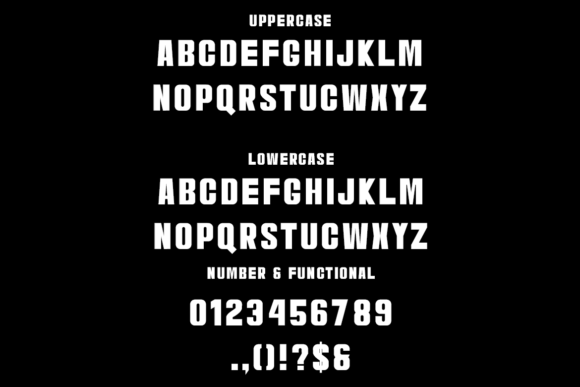
Unleash Your Creativity with Daedalus Font: The Ultimate Display Font for Speed and Power
Are you a designer or crafter looking for a font that can add a touch of boldness and coolness to your projects? Look no further than the Daedalus Font. This stunning display font is perfect for designs related to speed or power, and is sure to take your work to the next level. In this article, we’ll dive into the features and benefits of Daedalus Font, and explore how you can use it to elevate your designs.
What is Daedalus Font?
Daedalus Font is a modern, sans-serif display font that exudes confidence and energy. Its bold and sleek design makes it perfect for headlines, titles, and other display text. The font is highly legible, even at large sizes, making it ideal for use on posters, billboards, and other large-format designs.
Key Features of Daedalus Font
- Bold and Cool Design: Daedalus Font features a bold and cool design that is sure to grab attention. Its sleek lines and modern aesthetic make it perfect for designs that require a touch of sophistication.
- Highly Legible: Despite its bold design, Daedalus Font is highly legible, even at large sizes. This makes it perfect for use on a wide range of designs, from posters and billboards to digital screens and social media graphics.
- Versatile: Daedalus Font is a versatile font that can be used on a wide range of designs, from speed and power-related projects to fashion and lifestyle designs.
- Easily Customizable: Daedalus Font is easily customizable, allowing you to adjust the font size, color, and style to suit your design needs.
How to Use Daedalus Font in Your Designs
Daedalus Font is perfect for a wide range of design projects, including:
- Speed and Power-Related Designs: Daedalus Font is perfect for designs related to speed and power, such as sports cars, motorcycles, and athletic wear.
- Fashion and Lifestyle Designs: The font’s sleek and modern design makes it perfect for use on fashion and lifestyle designs, such as clothing, accessories, and beauty products.
- Posters and Billboards: Daedalus Font is highly legible, even at large sizes, making it perfect for use on posters and billboards.
- Digital Designs: The font is also perfect for use on digital designs, such as social media graphics, website headers, and digital ads.
Benefits of Using Daedalus Font
By using Daedalus Font in your designs, you can:
- Add a Touch of Boldness and Coolness: Daedalus Font adds a touch of boldness and coolness to your designs, making them stand out from the crowd.
- Increase Legibility: The font’s high legibility ensures that your message is conveyed clearly and effectively, even at large sizes.
- Enhance Your Brand’s Image: By using Daedalus Font, you can enhance your brand’s image and create a lasting impression on your audience.
In conclusion, Daedalus Font is a cool and bold display font that is perfect for designs related to speed or power. Its highly legible design, versatility, and ease of customization make it a must-have for designers and crafters. By using Daedalus Font in your projects, you can add a touch of boldness and coolness, increase legibility, and enhance your brand’s image. So why wait? Add Daedalus Font to your design arsenal today and take your work to the next level!